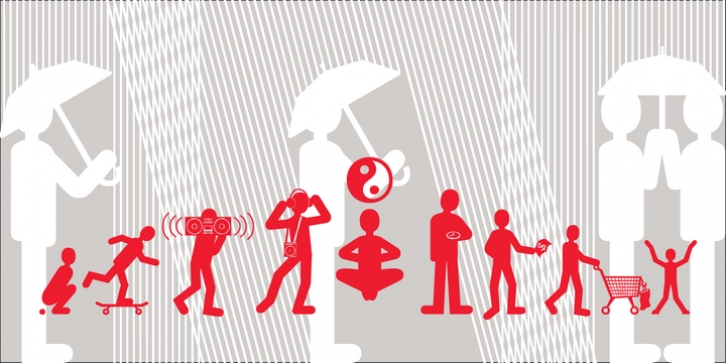
A collection of over 70 pictograms featuring people doing all sorts of everyday things Signs for allowing or not allowing these activities are also included.
To use the “not allowed” or sign symbols simply type the preferred sign symbol ( either , . ; : ' or # ) followed by the activity or person you want to include within the sign.
For example, to make a “no gifts” sign, type (in a large point size)-- :8 To make a two color sign, type three spaces between the two characters and then change one of character’s colors, then remove the three spaces.